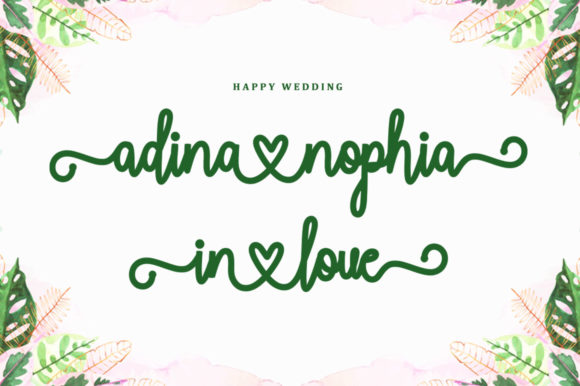
Dentany Font
db-ku.com - Script & Handwritten -- Dentany is one of the modern calligraphy script fonts that comes with a beautiful style that connects the heart, designed with high detail to present a luxurious style.